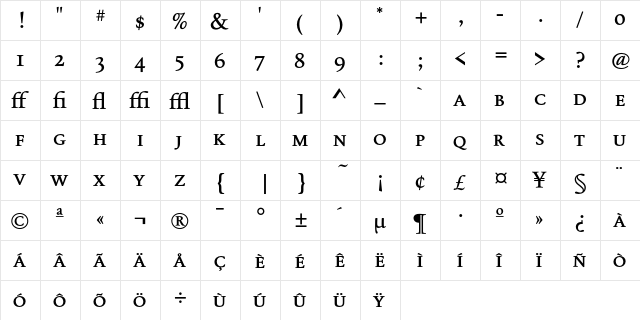
FoundryOldStyleExpert Medium
Design Context for FoundryOldStyleExpert Typeface
FoundryOldStyleExpert carries the refined structure of traditional serif typography, with bracketed terminals and considered proportions that communicate credibility and craft.
Pro Tip: Use FoundryOldStyleExpert for editorial body copy and considered headline work. Pair with a neutral sans for UI elements or captions to create a classic hierarchy.